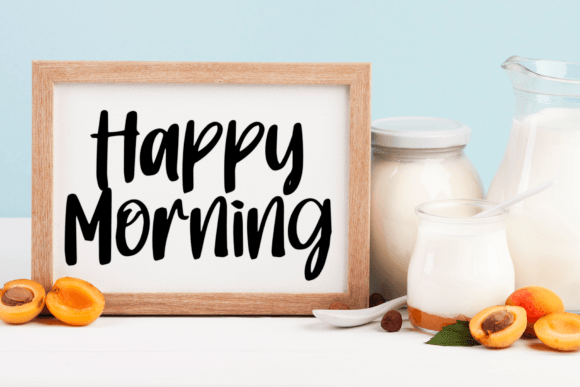
Grinch Font
Grinch is a playful, brush-display font that captures a fun and celebratory vibe. With its lively strokes and casual style, it’s perfect for birthday cards, party invitations, or any joyful occasion. The font feels personal and warm, adding a creative touch to your designs.